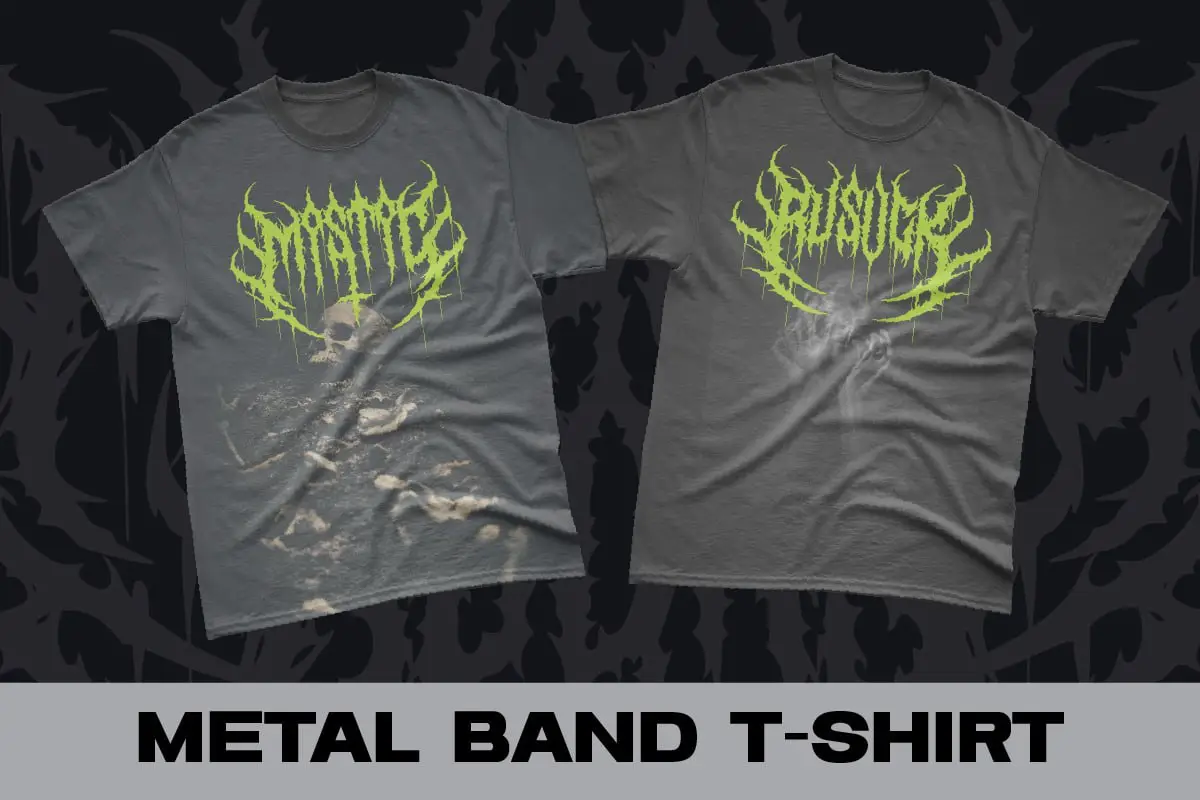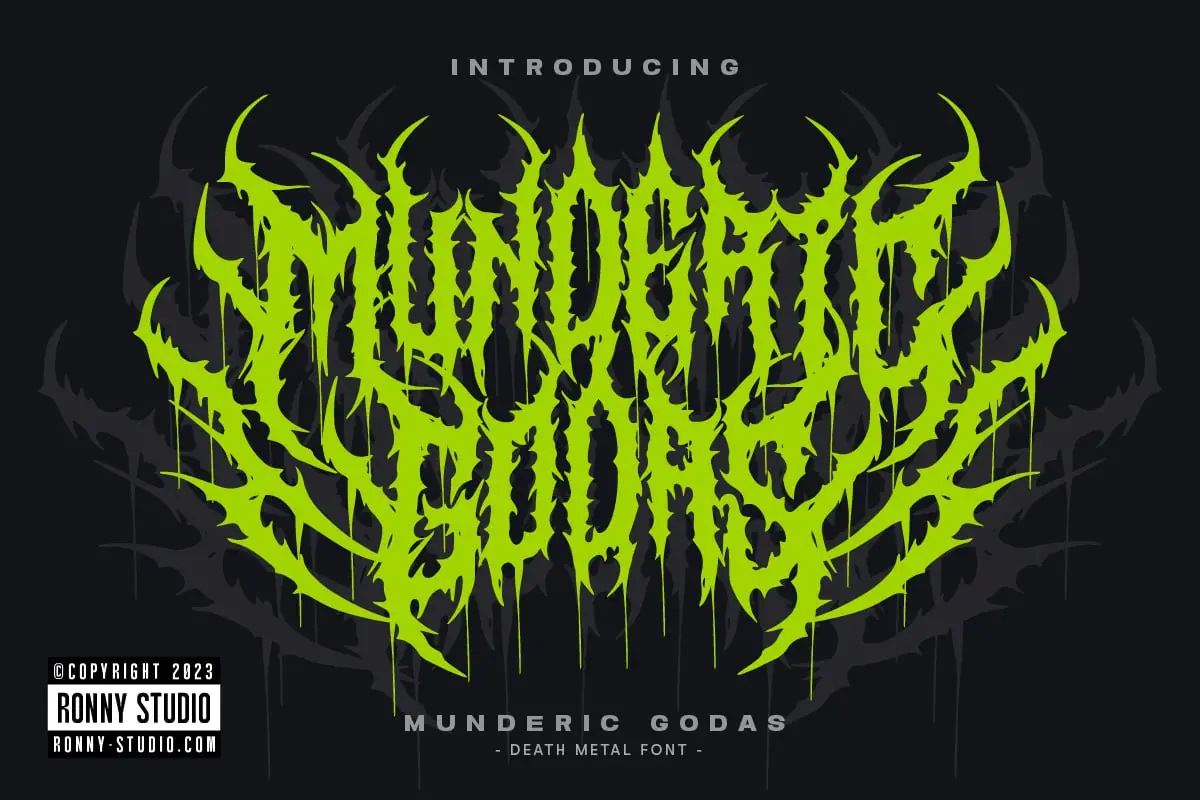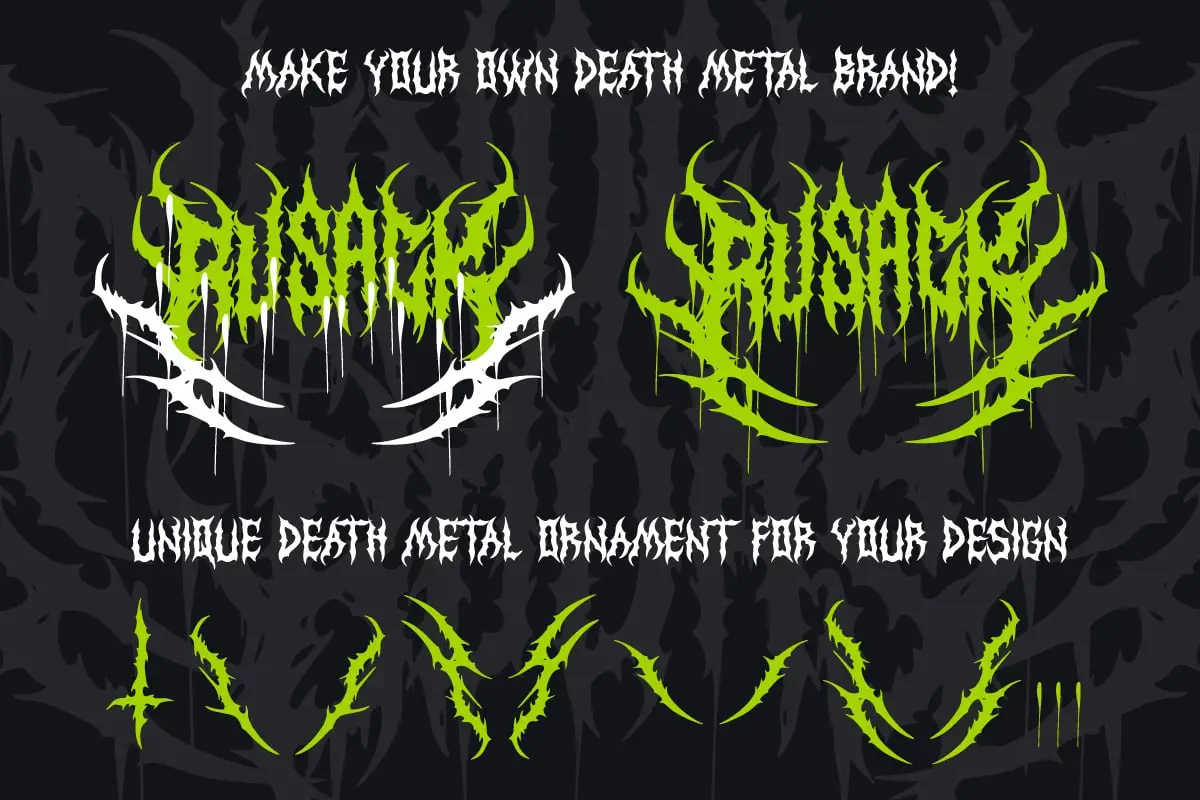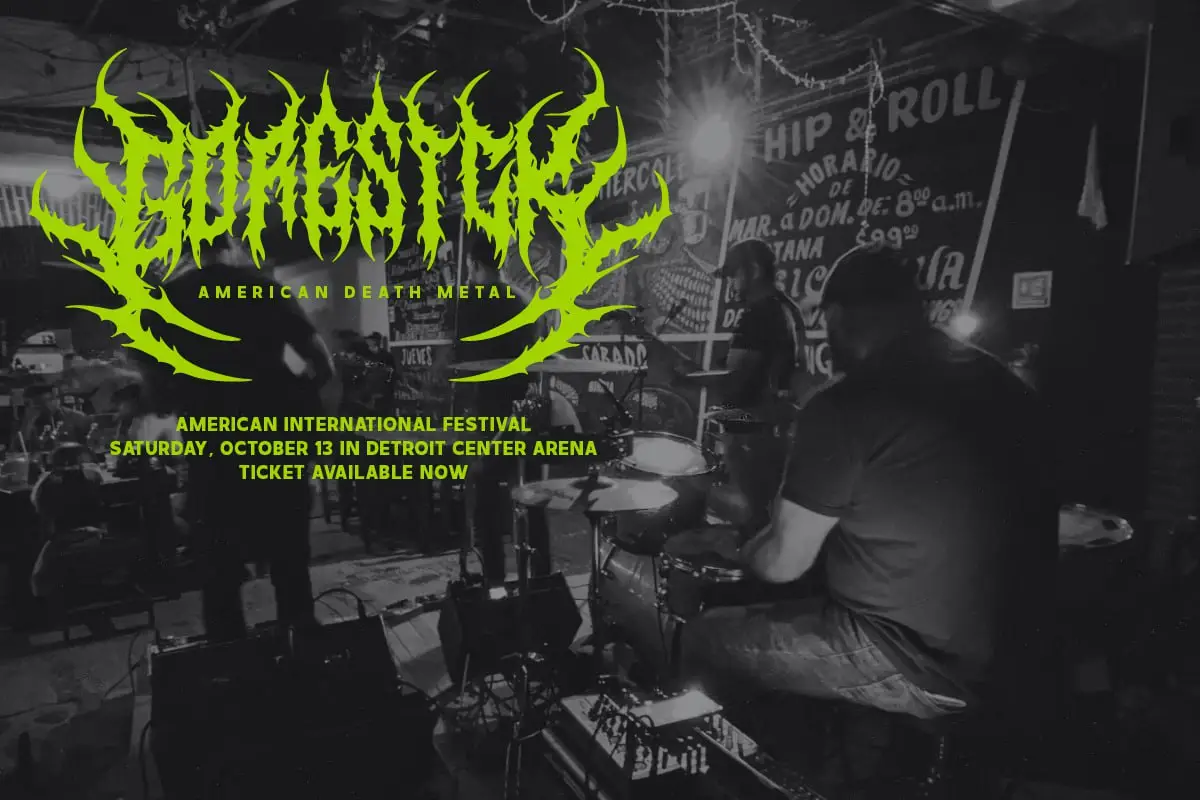
The Munderic Godas font is a striking death metal typeface designed by Ronny Studio. This font features bold, aggressive letterforms that capture the essence of the metal genre, making it ideal for album covers, merchandise, and promotional materials.
- Unique, hand-crafted design
- Uppercase and lowercase letters
- Numerals and punctuation included
- Styles: Display, Decorative
- Weight: Regular, Bold
- Perfect for branding and logo design in the metal music scene
- Great for posters, flyers, and digital graphics
- Use in web design for a bold, edgy look